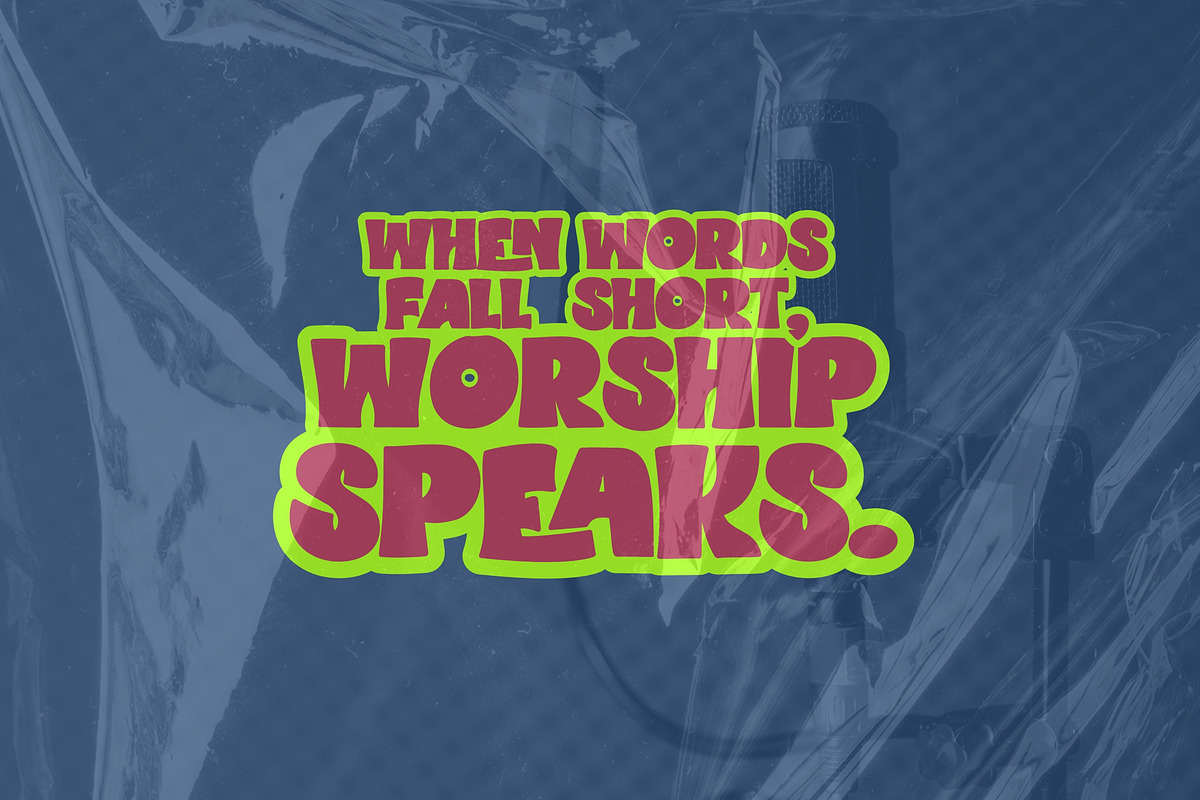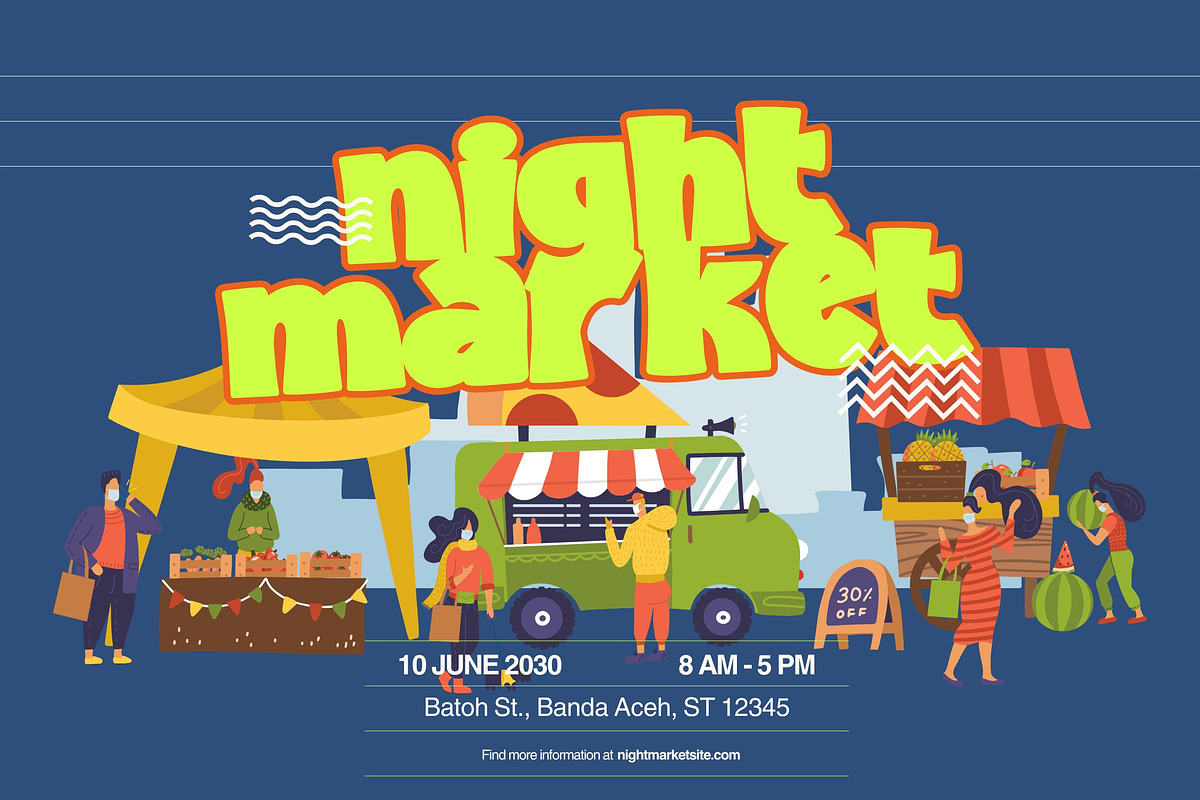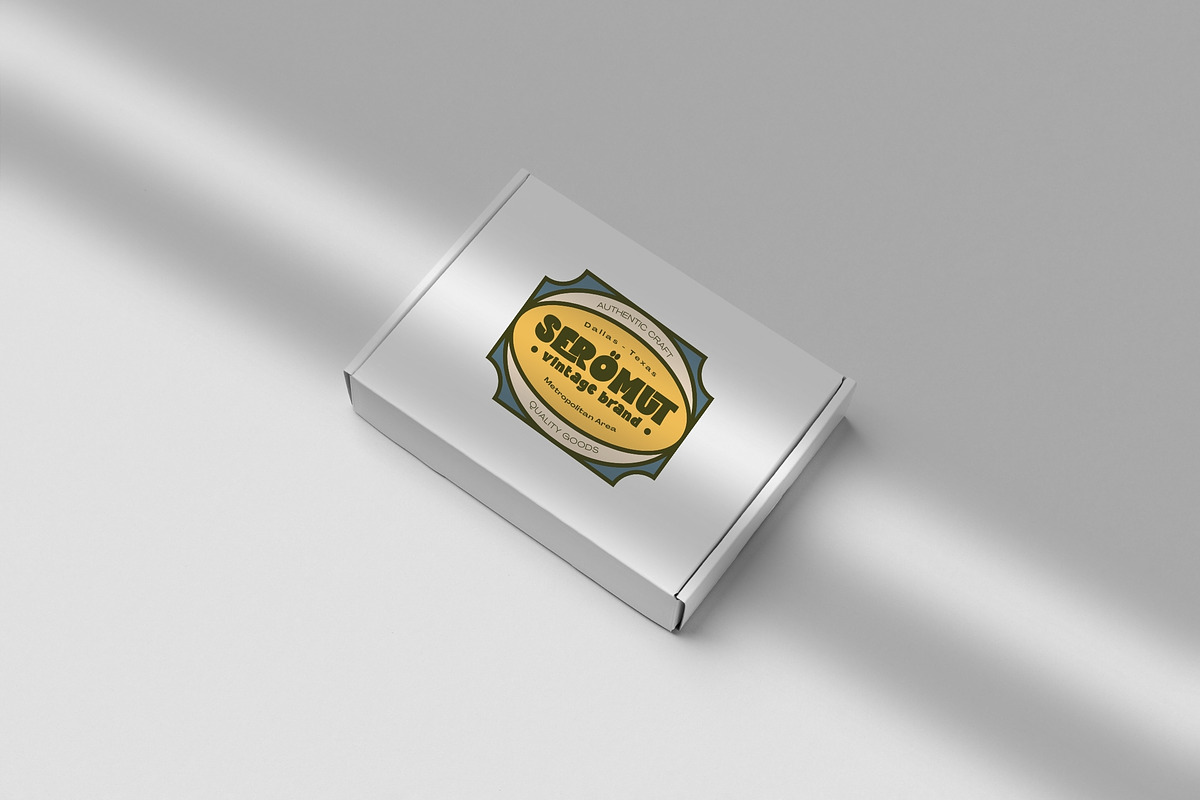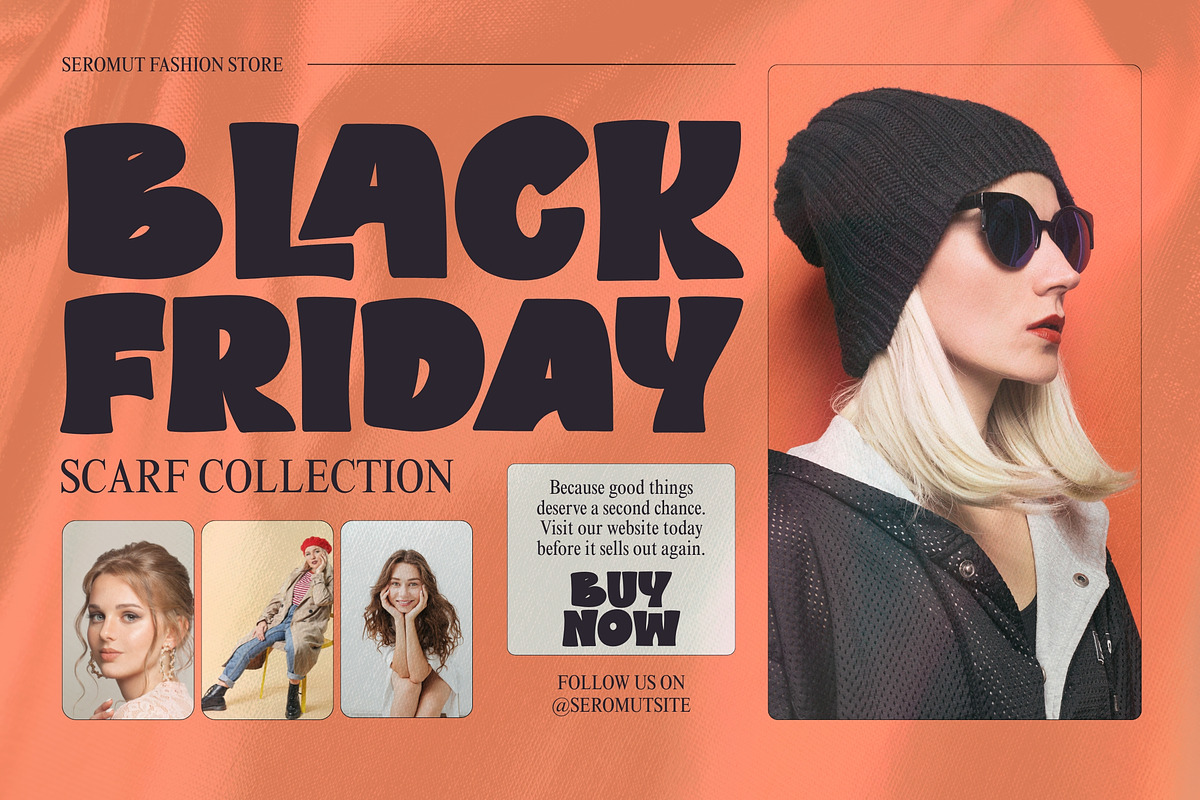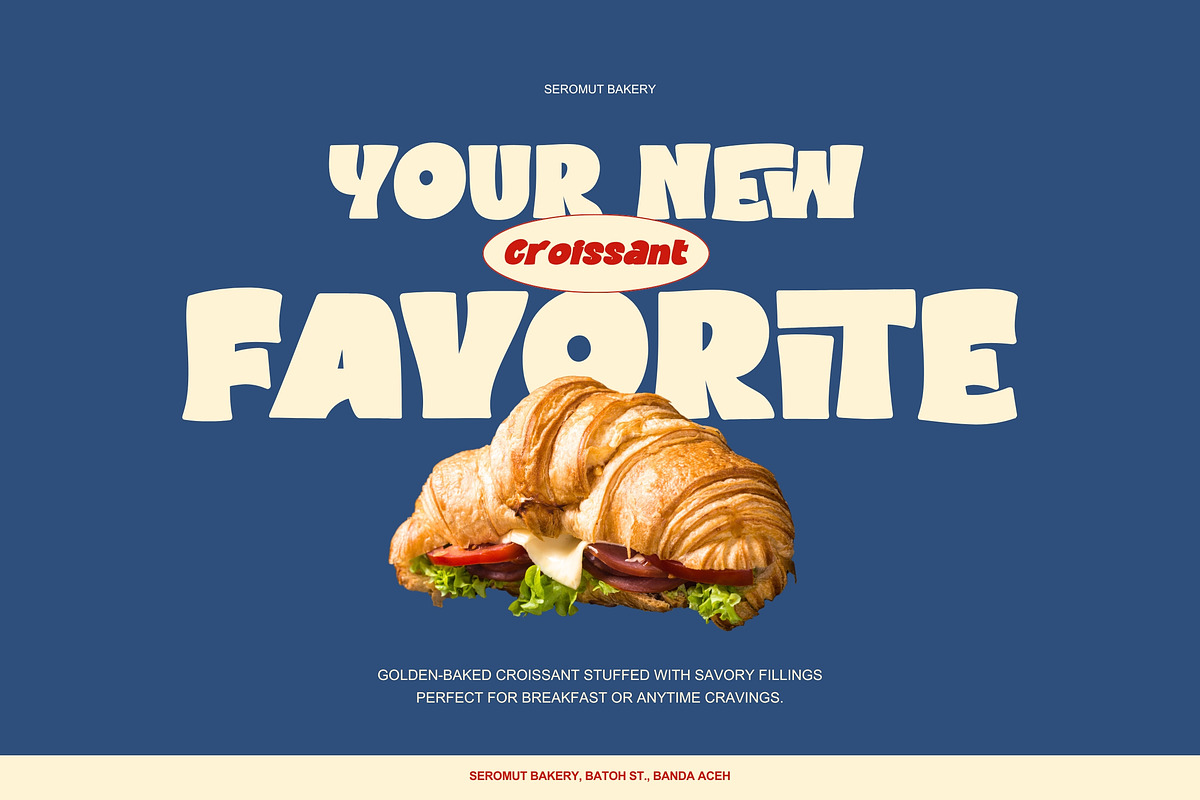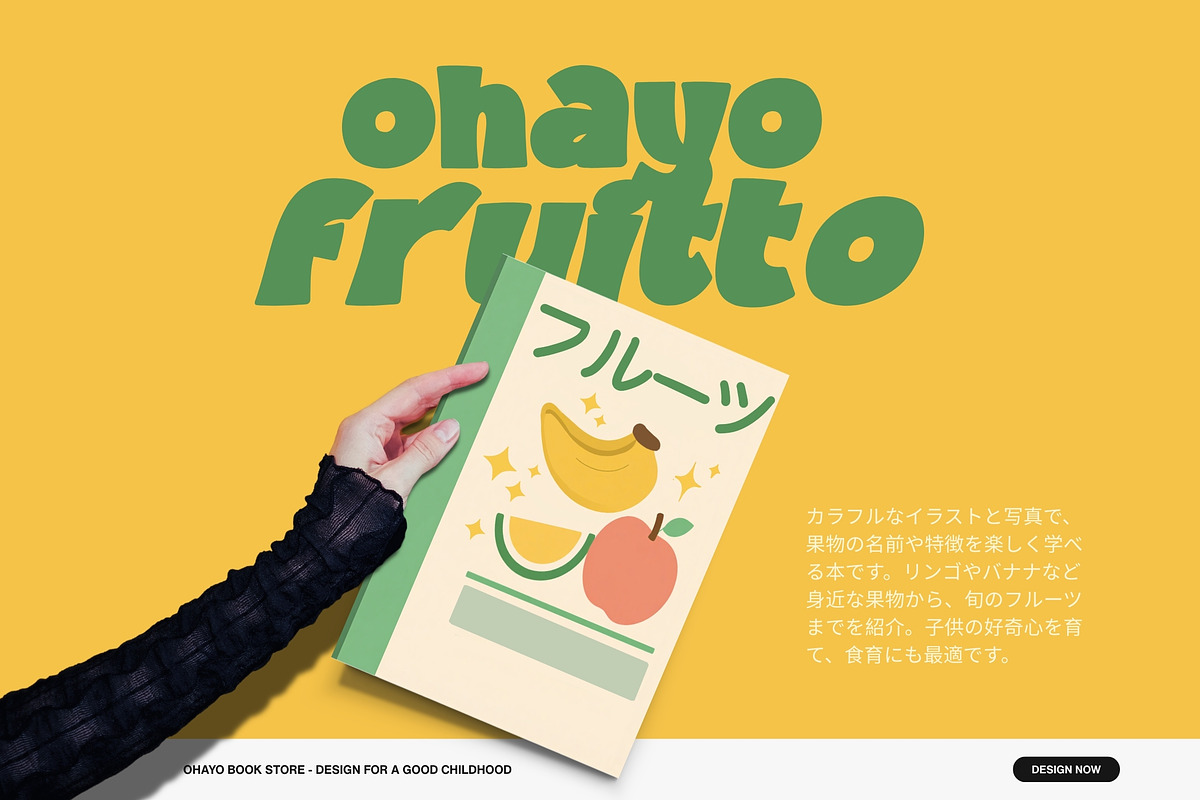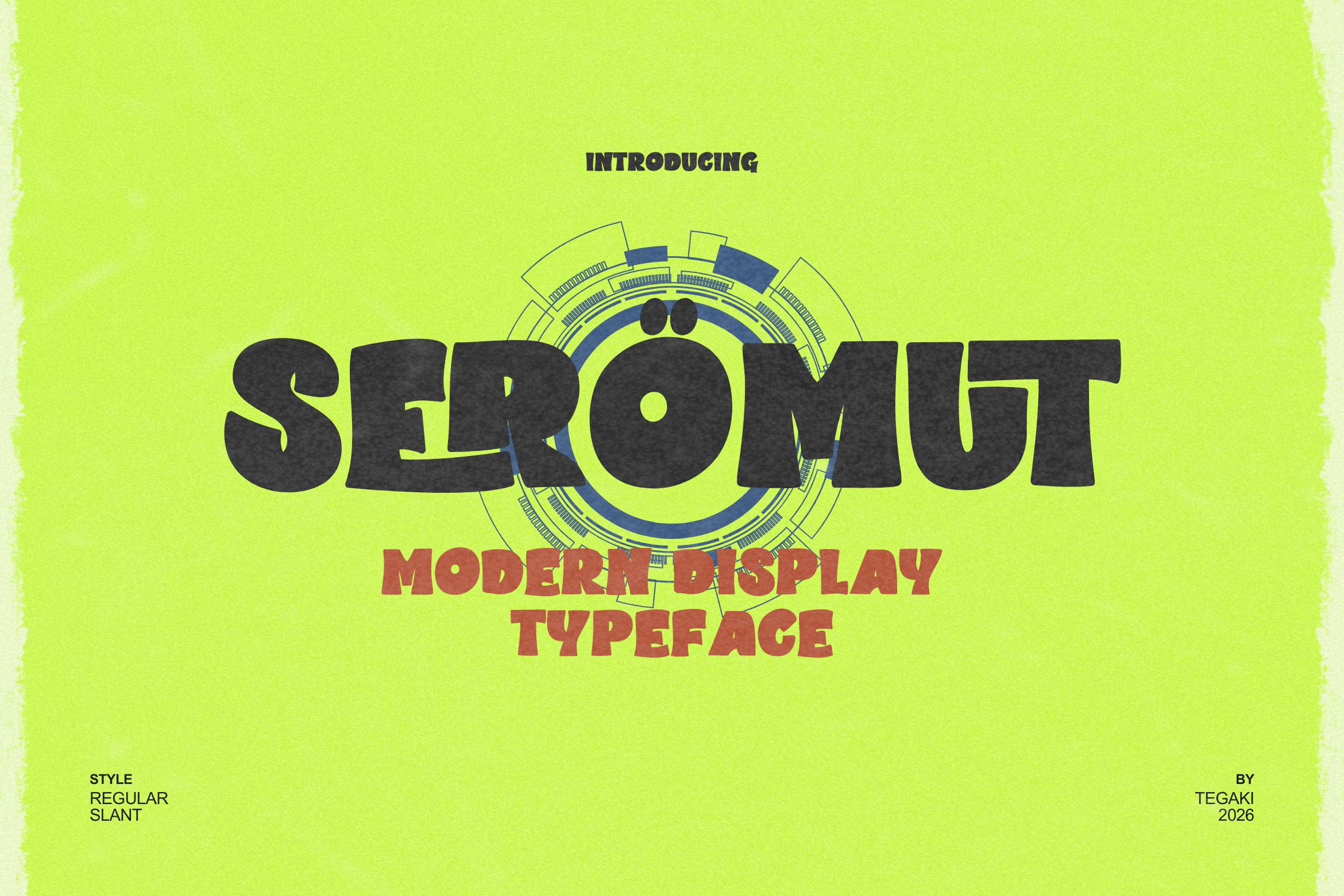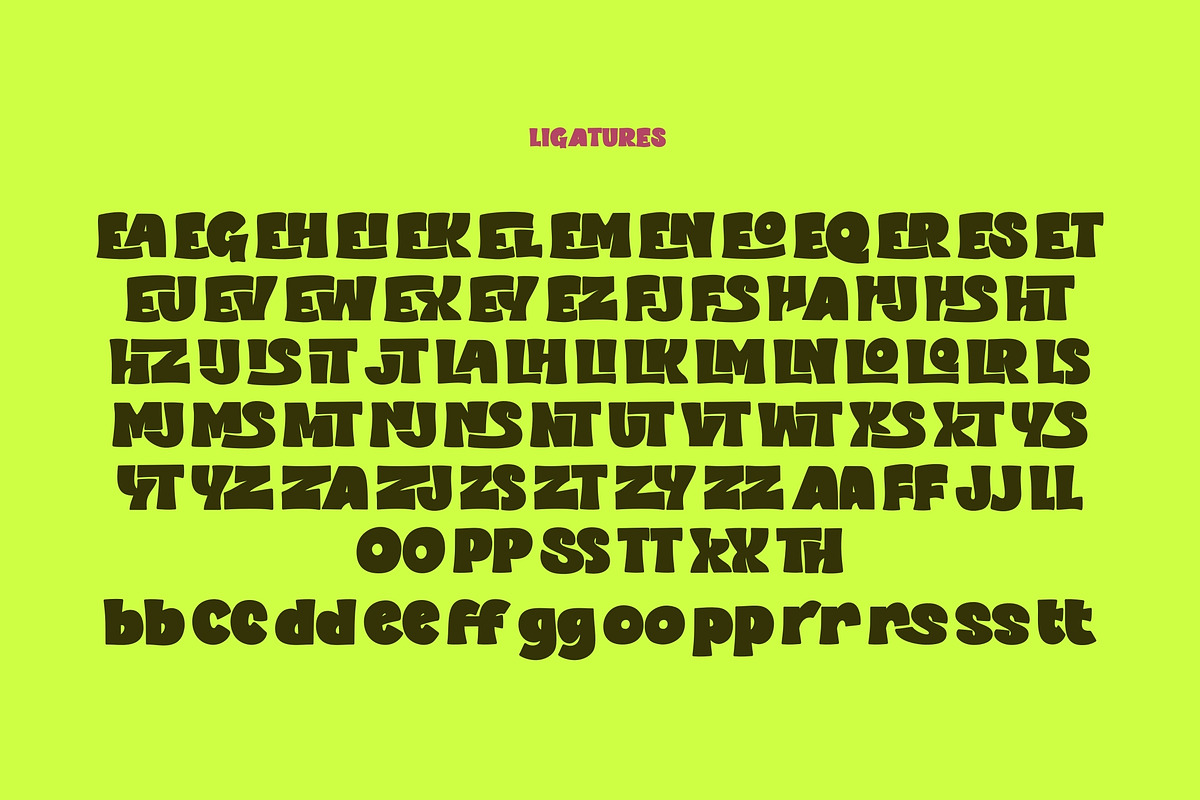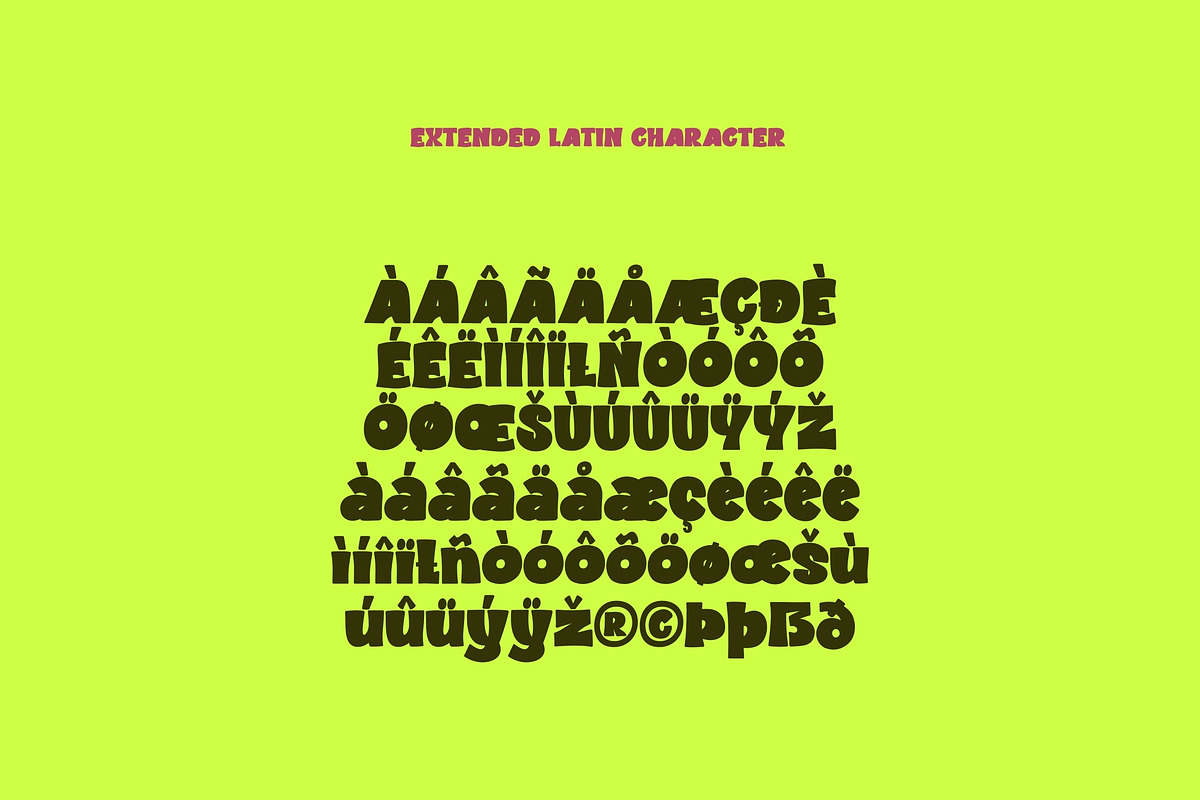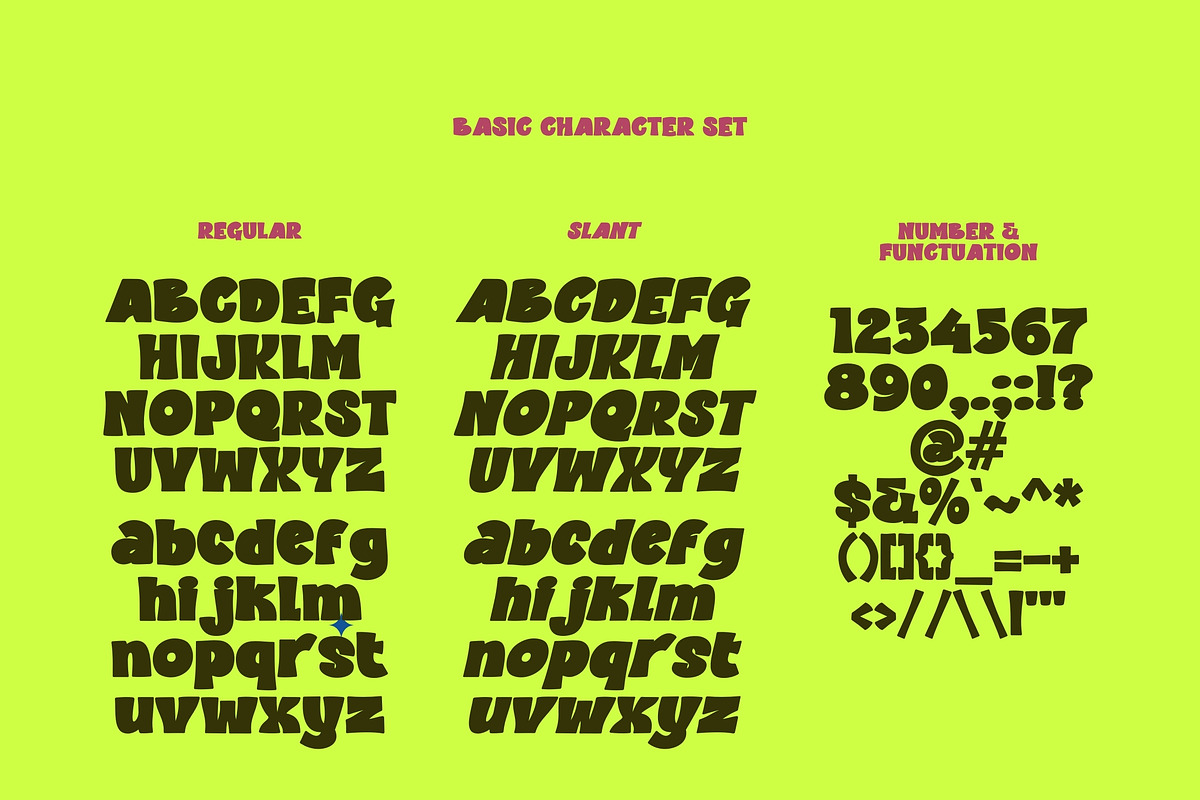
Seromut - Modern Display Typeface
Introducing SERÖMUT
Designed by Tegaki Script
Seromut – Modern Handwritten Typeface
SERÖMUT is a bold modern display typeface with a chunky, playful character and strong visual impact. Its rounded, expressive letterforms bring a retro touch while staying fresh and contemporary. Perfect for headlines, posters, branding, packaging, and eye-catching graphics.
Comes in 2 styles: Regular and Slant, giving you both solid strength and dynamic movement in one versatile family.